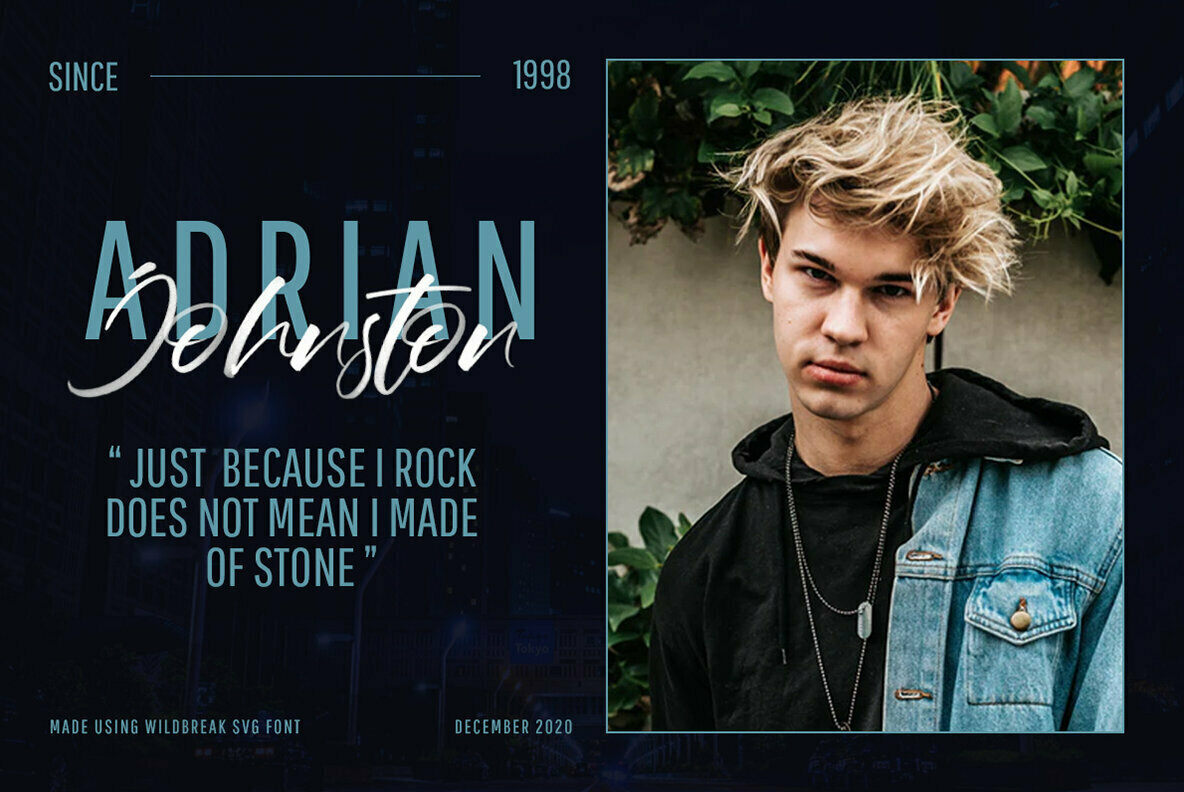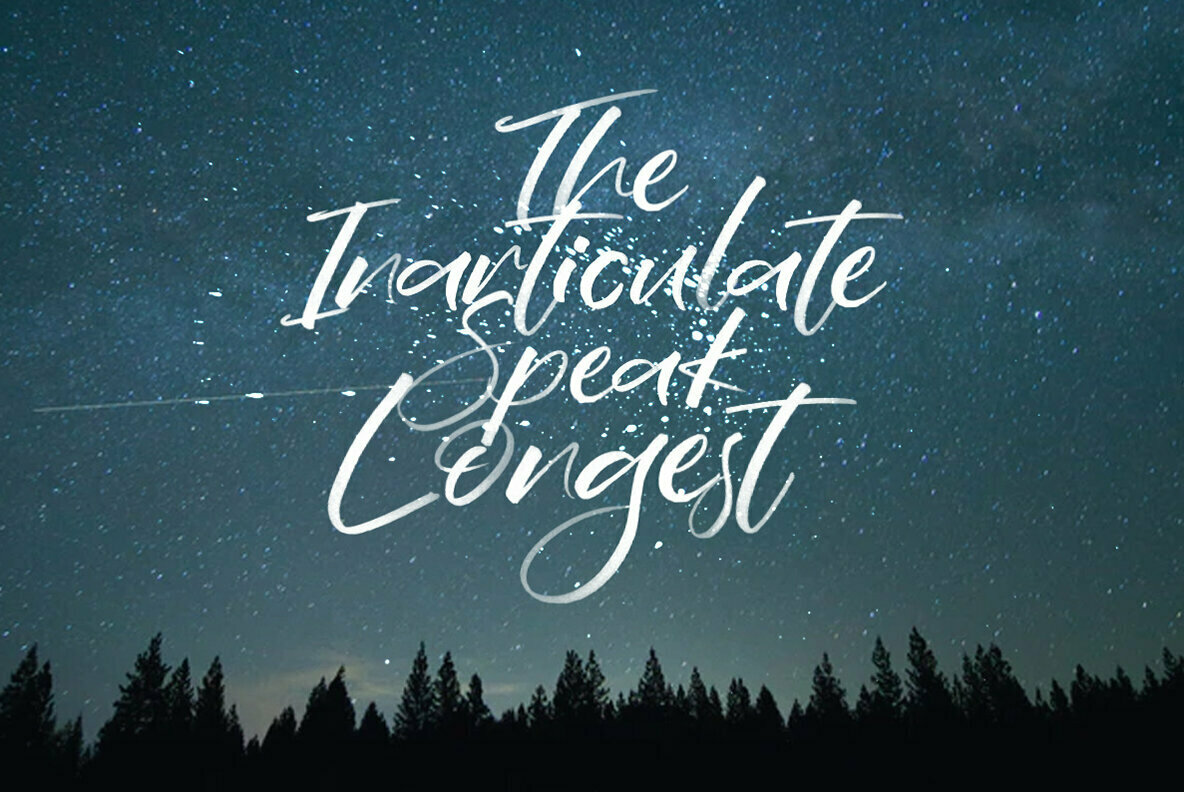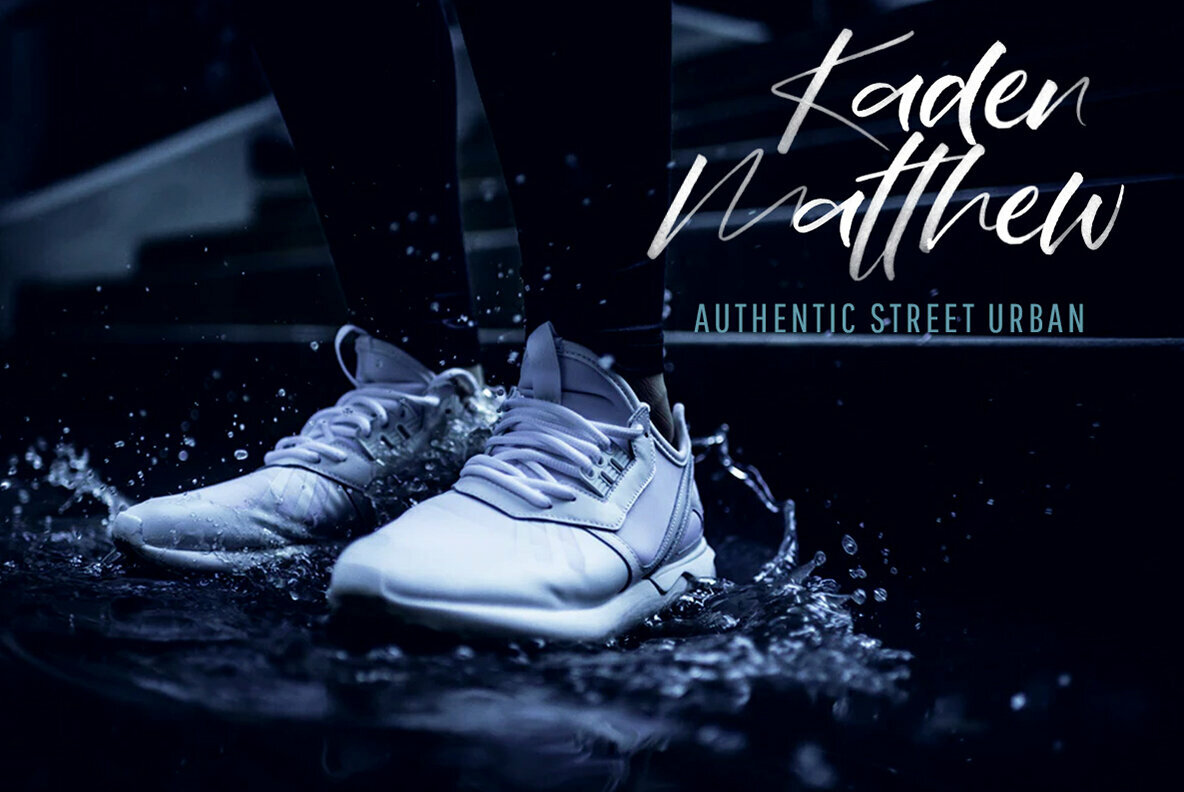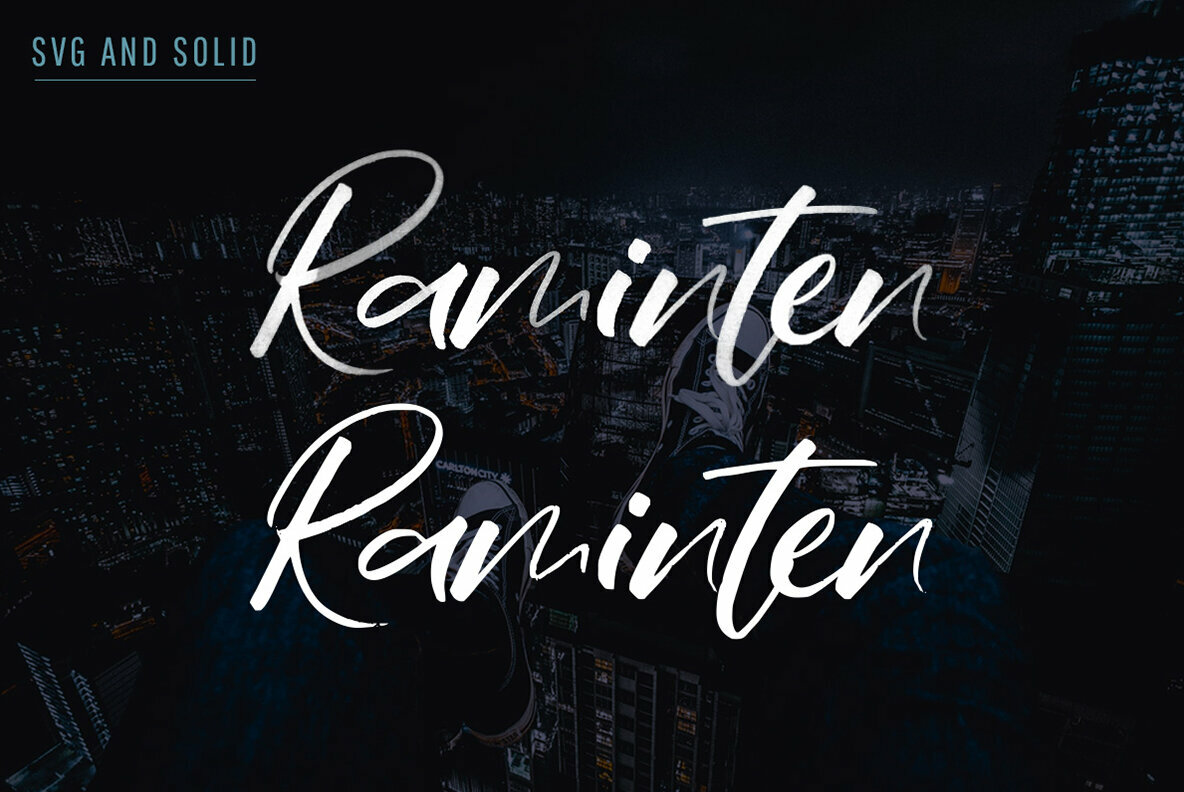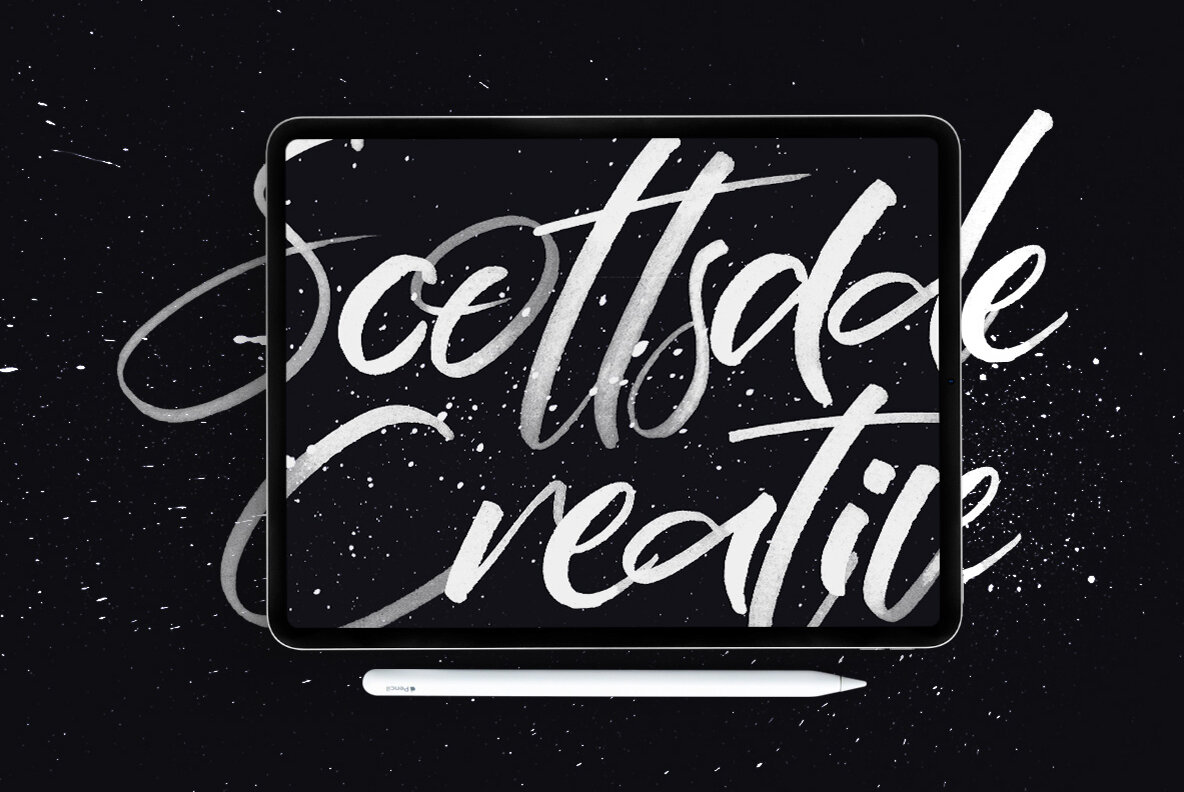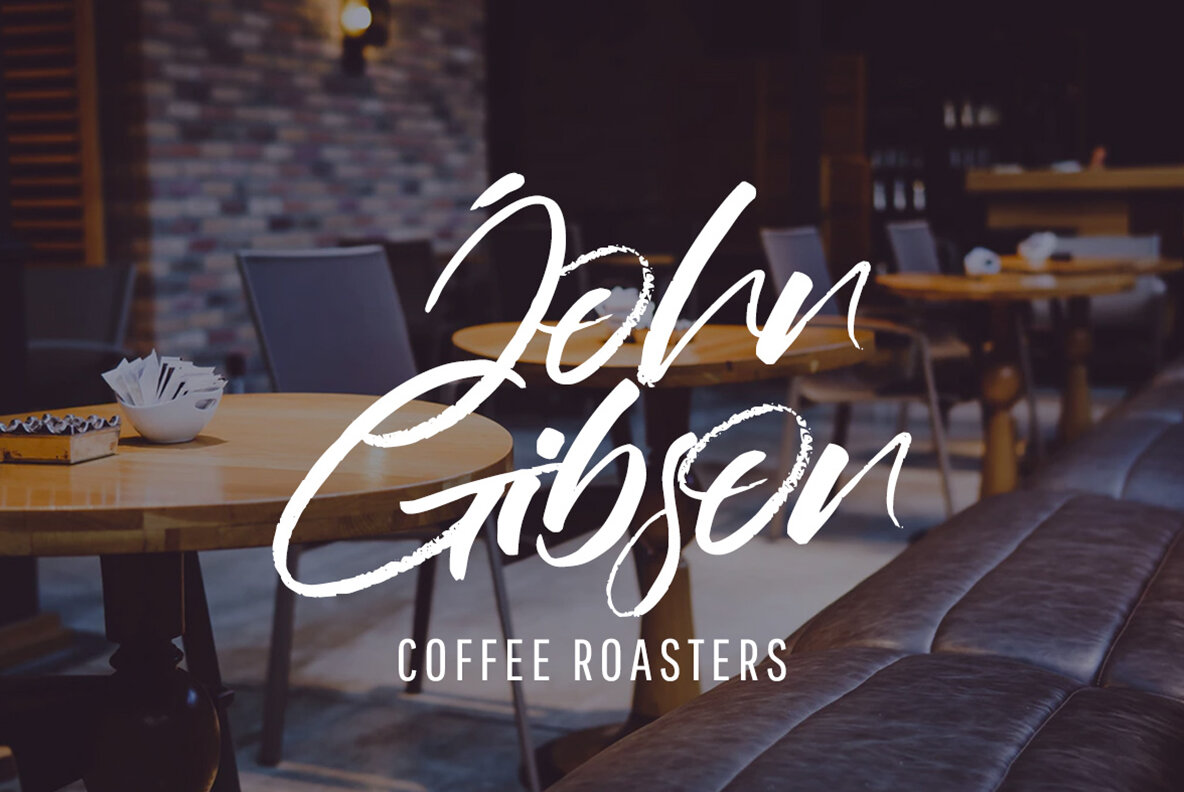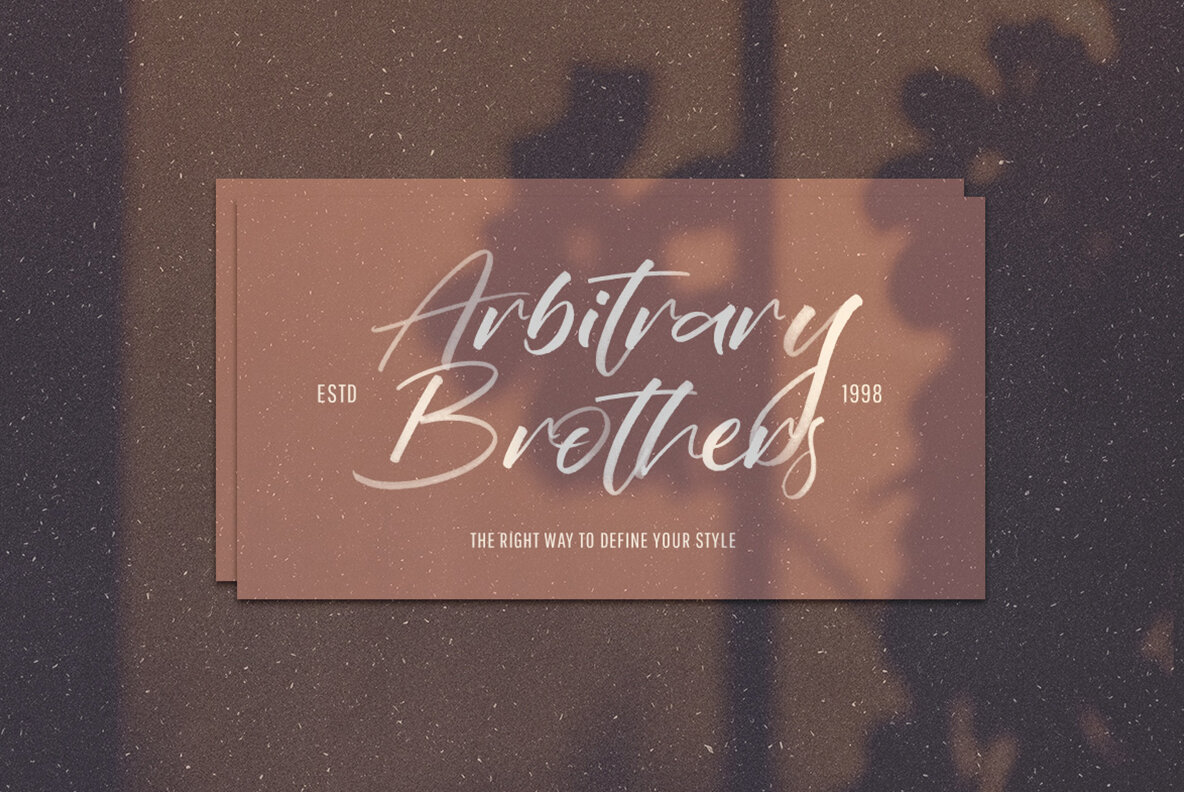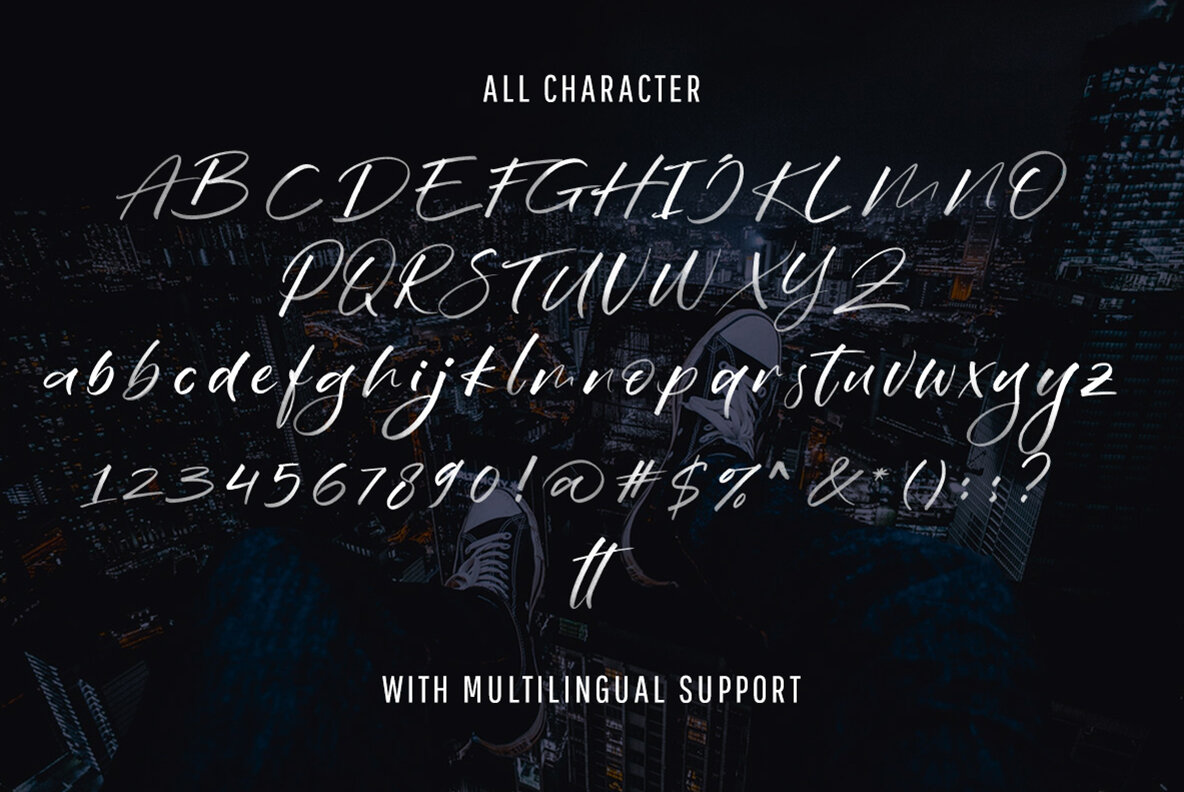
Wildbreak SVG Font
Wildbreak - a textured SVG brush script typeface. Available in two types, solid version and transparent version. This type of font perfectly made to be applied especially in headlines which is need a standout font, and the other various formal forms such as invitations, labels, logos, magazines, books, greeting / wedding cards, packaging, fashion, make up, stationery, novels, labels or any type of advertising purpose.
- Solid version and svg version
- lowercase and uppercase
- numbers and punctuation
- multilingual
- ligatures